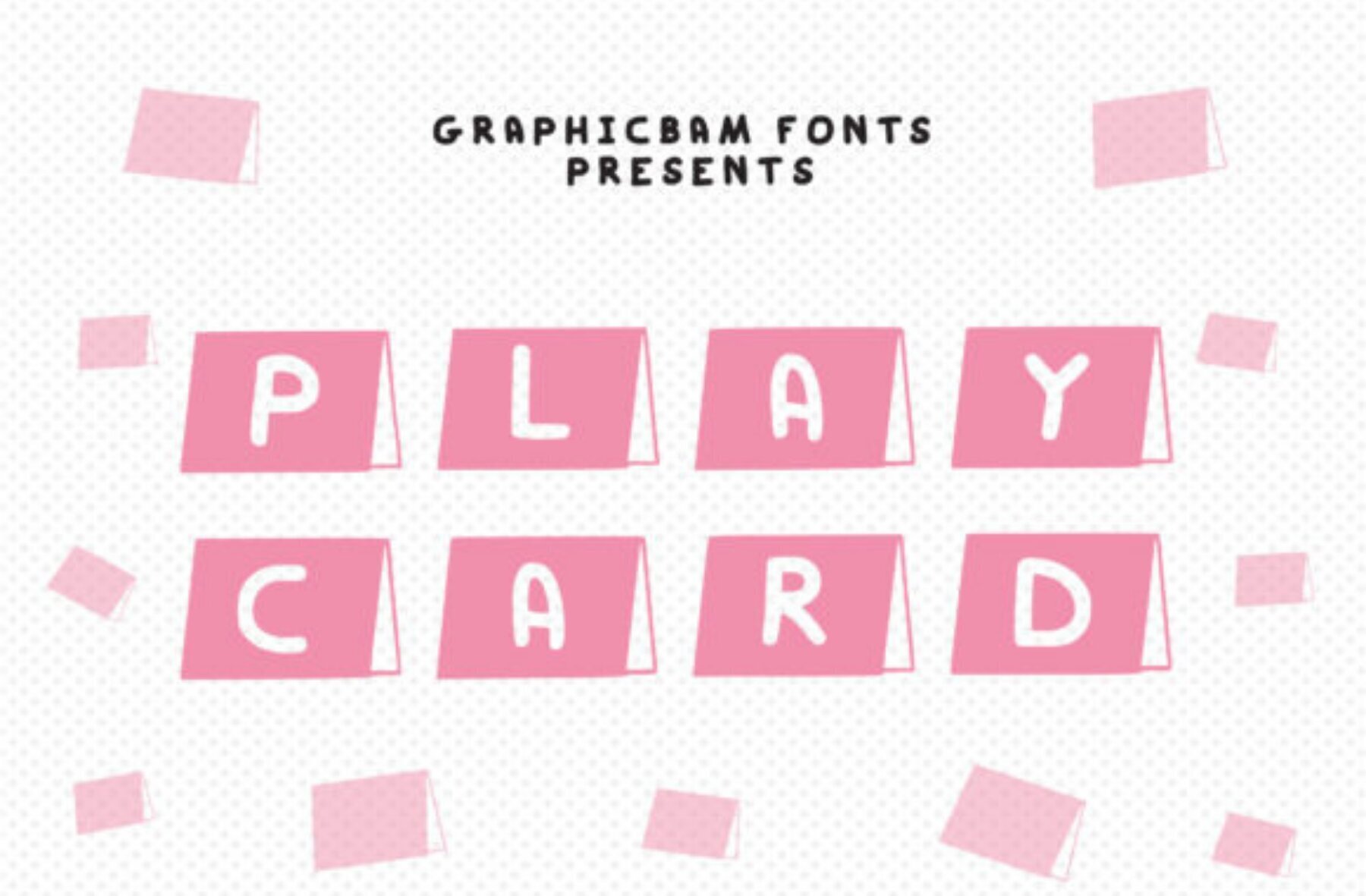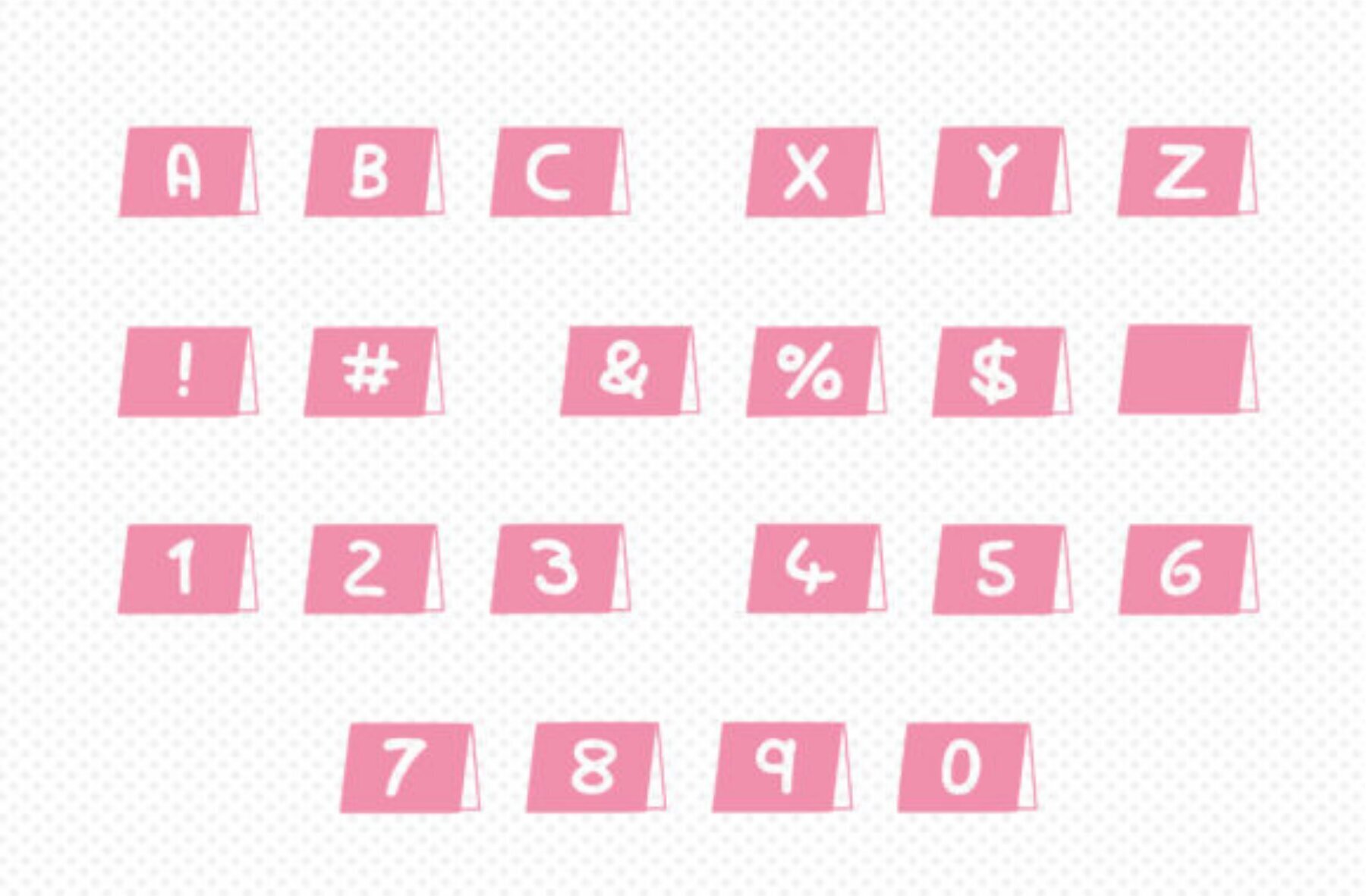
Play Card Font
Introducing Play Card, an intriguing decorative font by Graphics Bam that is sure to add a playful touch to your projects. Each character in this font incorporates a stylish card design, making it perfect for a variety of creative applications.Play Card: Decorative Font with a Unique Twist